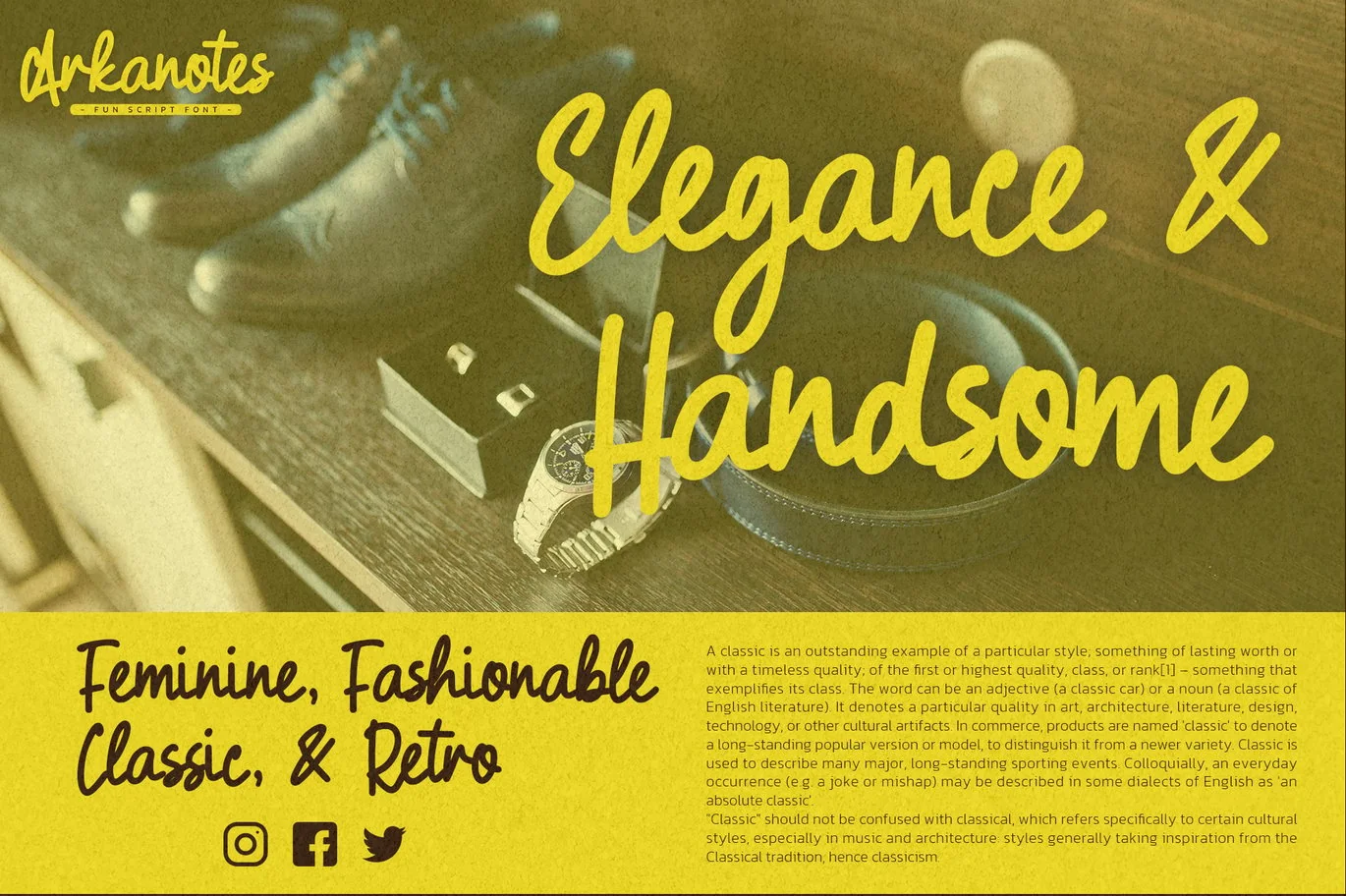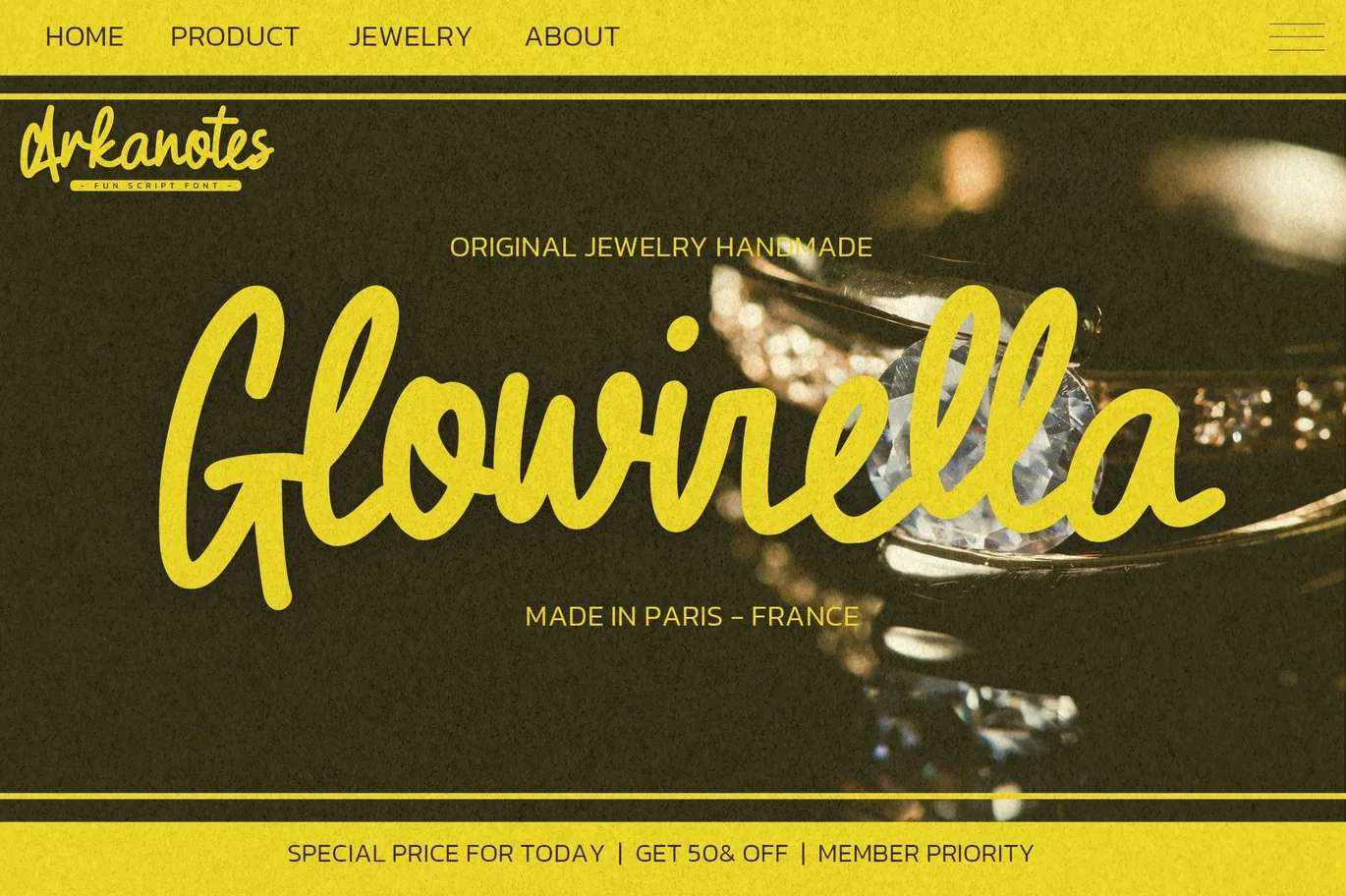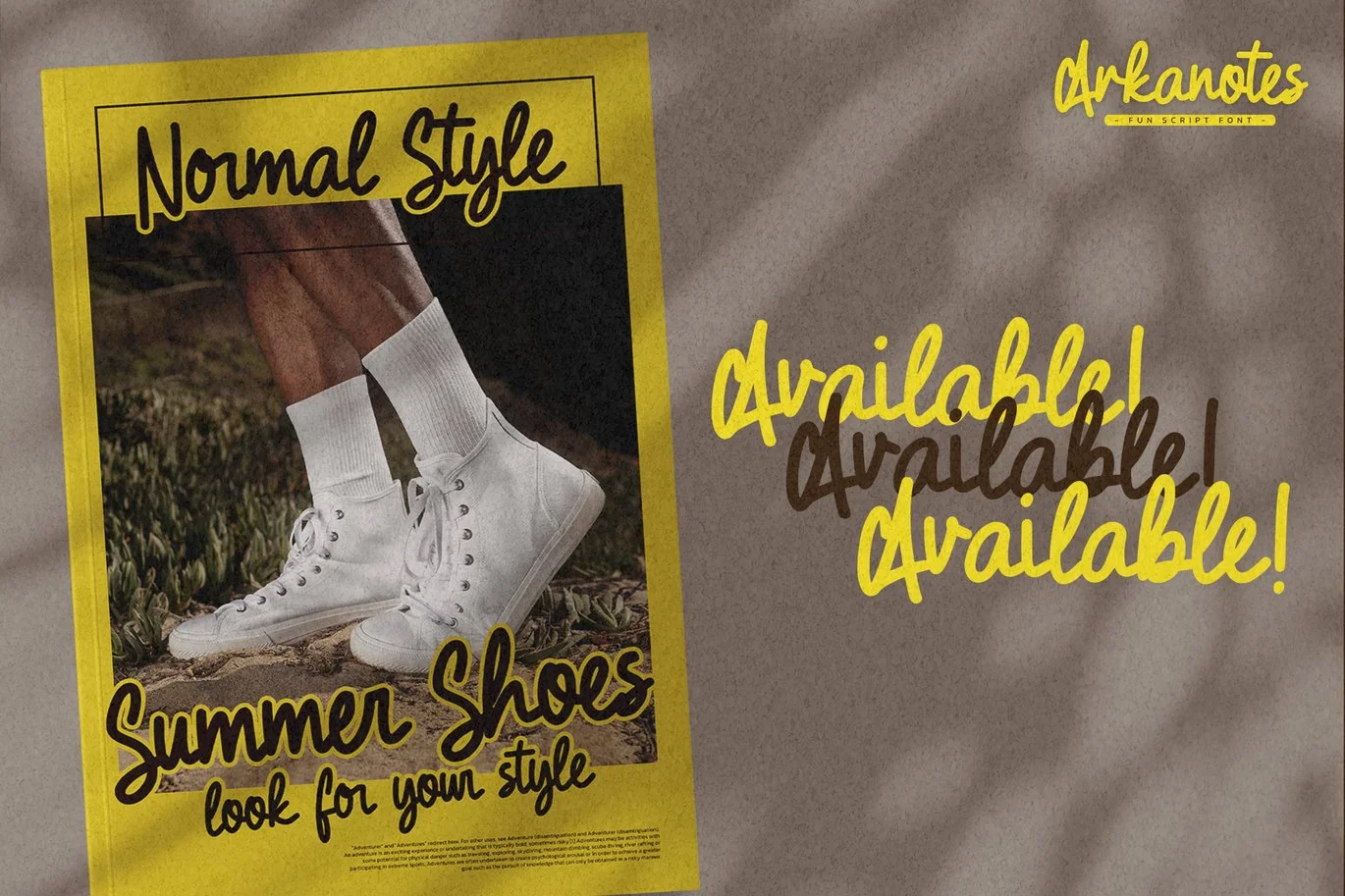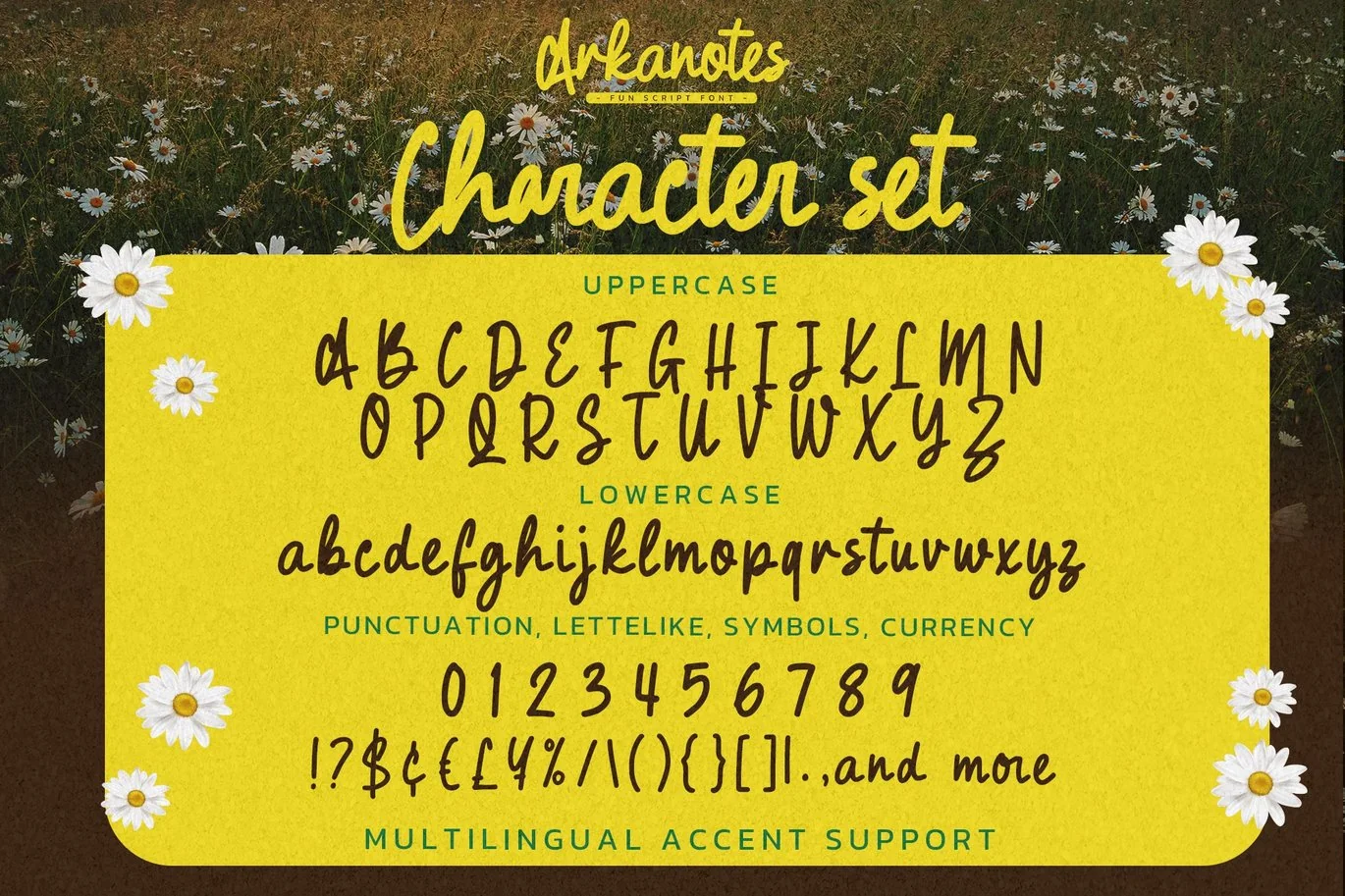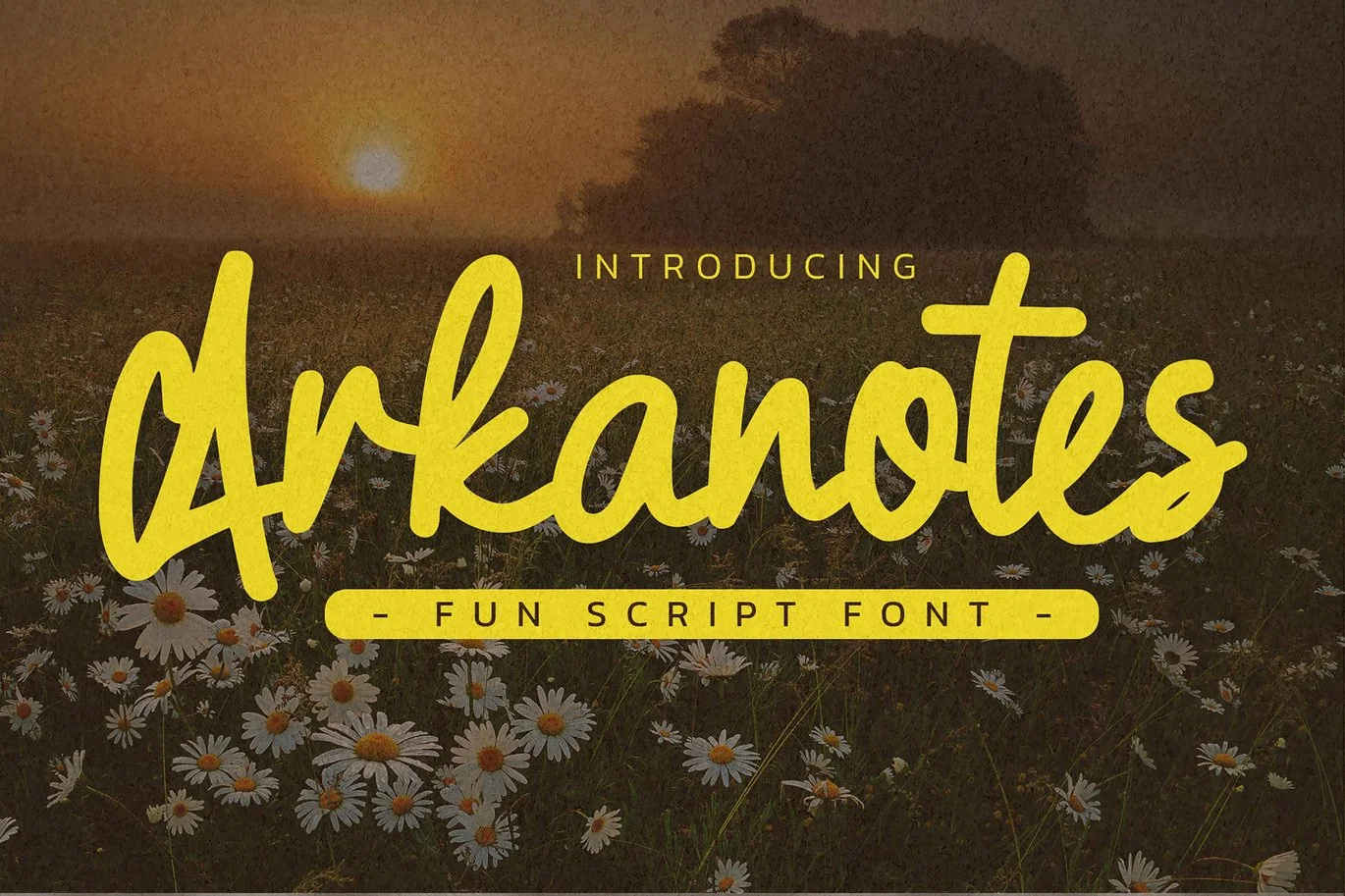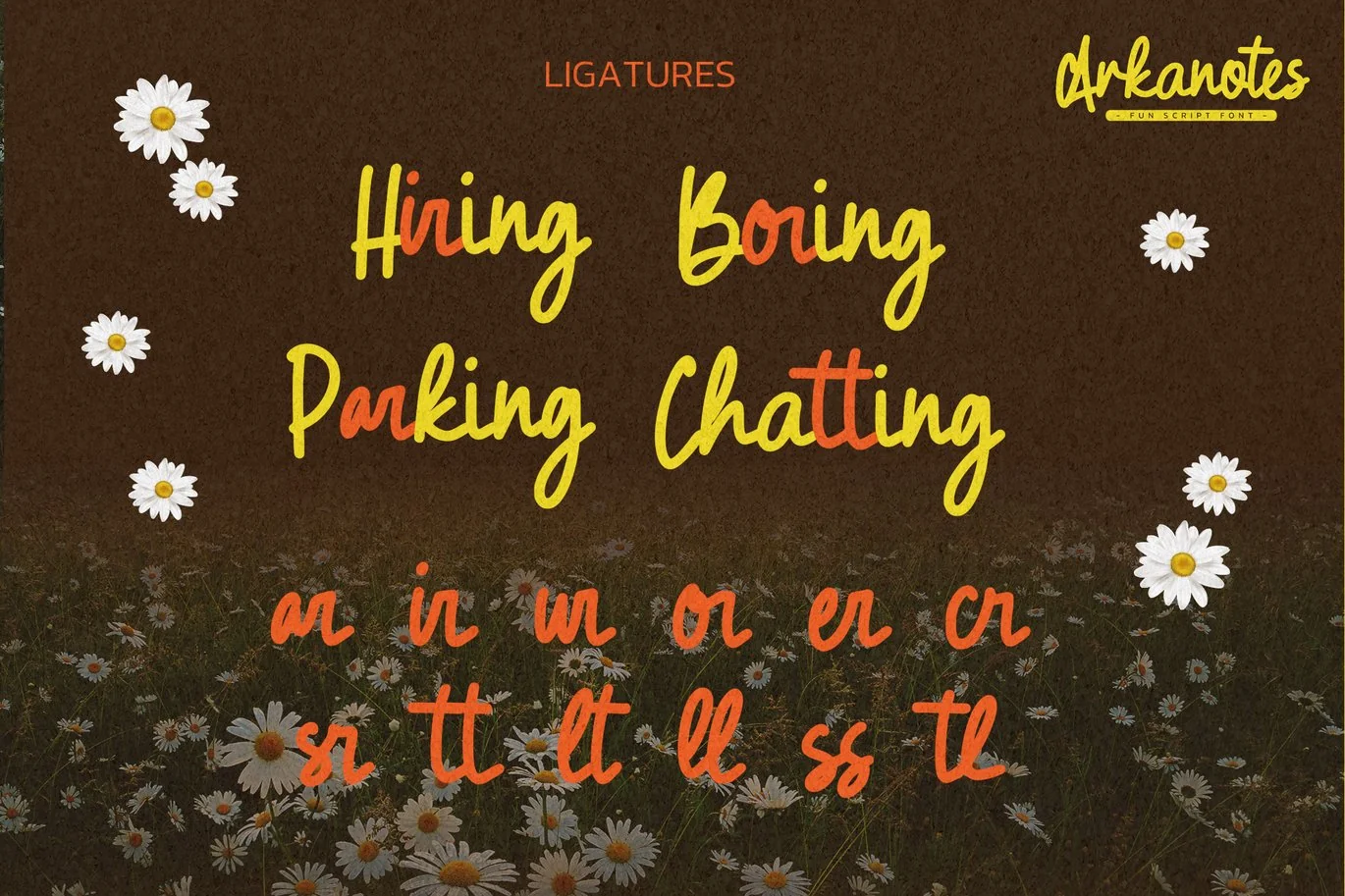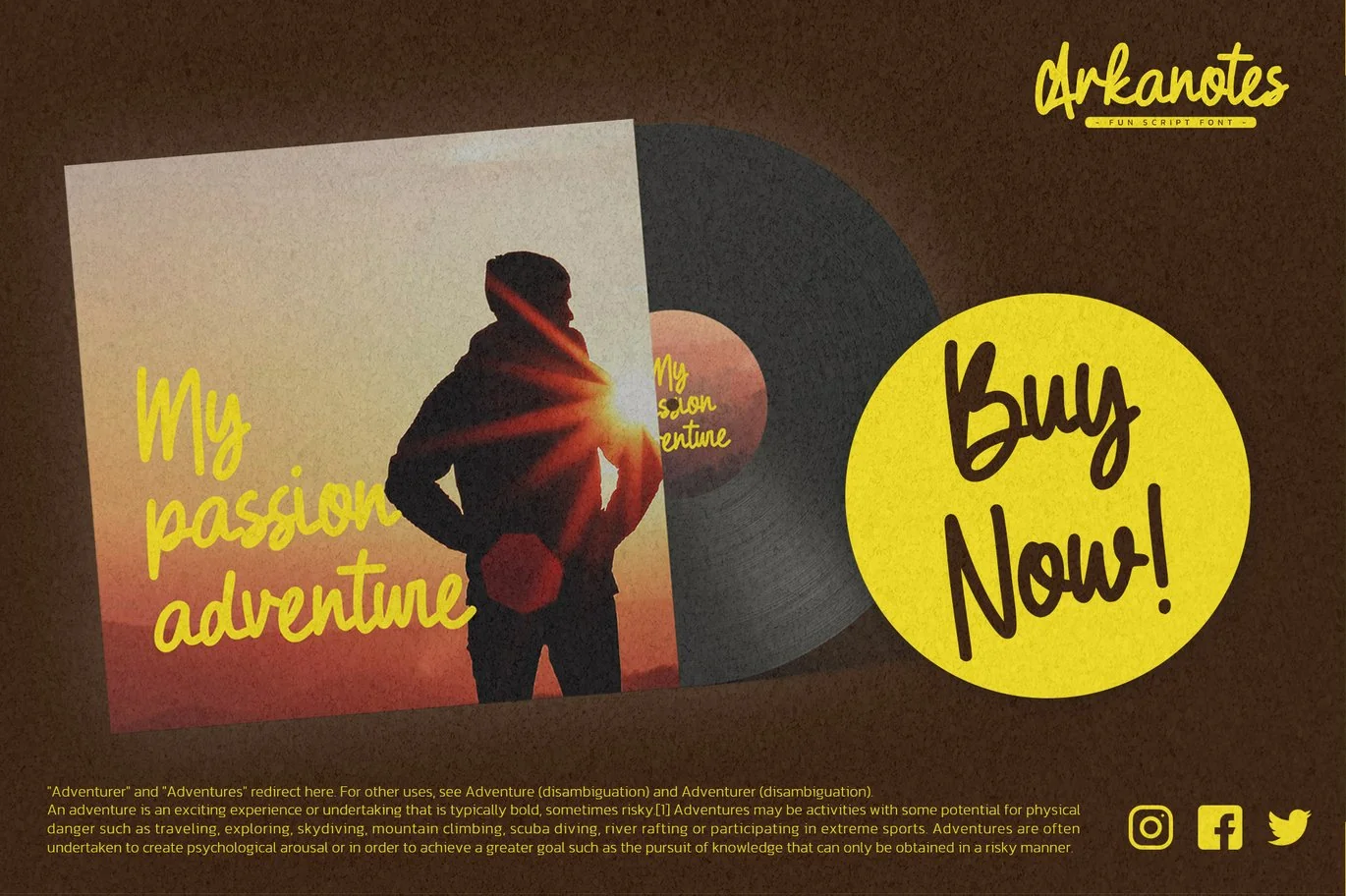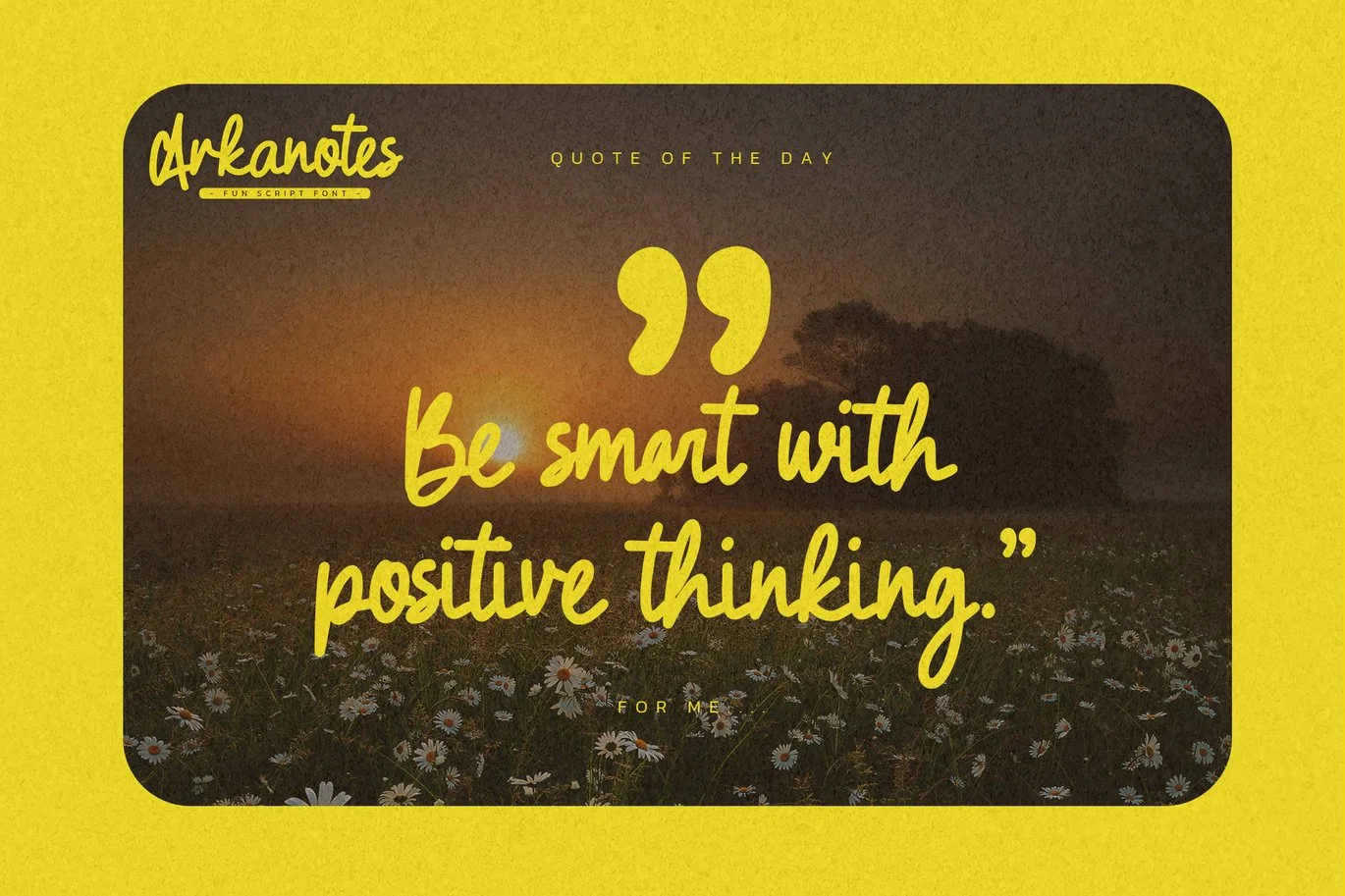
Arkanotes – Fun Script Font
Here comes a New font, Introducing Arkanotes – Fun Script Font is a Authentic script that is written casually and quickly. Letters are made with handwritten on paper. Then scanned and carefully drawn into vector format.
That is why Arkanotes has charming, authentic and relaxed characteristic more natural look to your text with a more natural look to your text.
This font is PUA encoded which means you can access all of the magical glyphs with ease! It also features a wealth of special features including You can activate 12 Ligatures OpenType panel.
Fonts include multilingual support